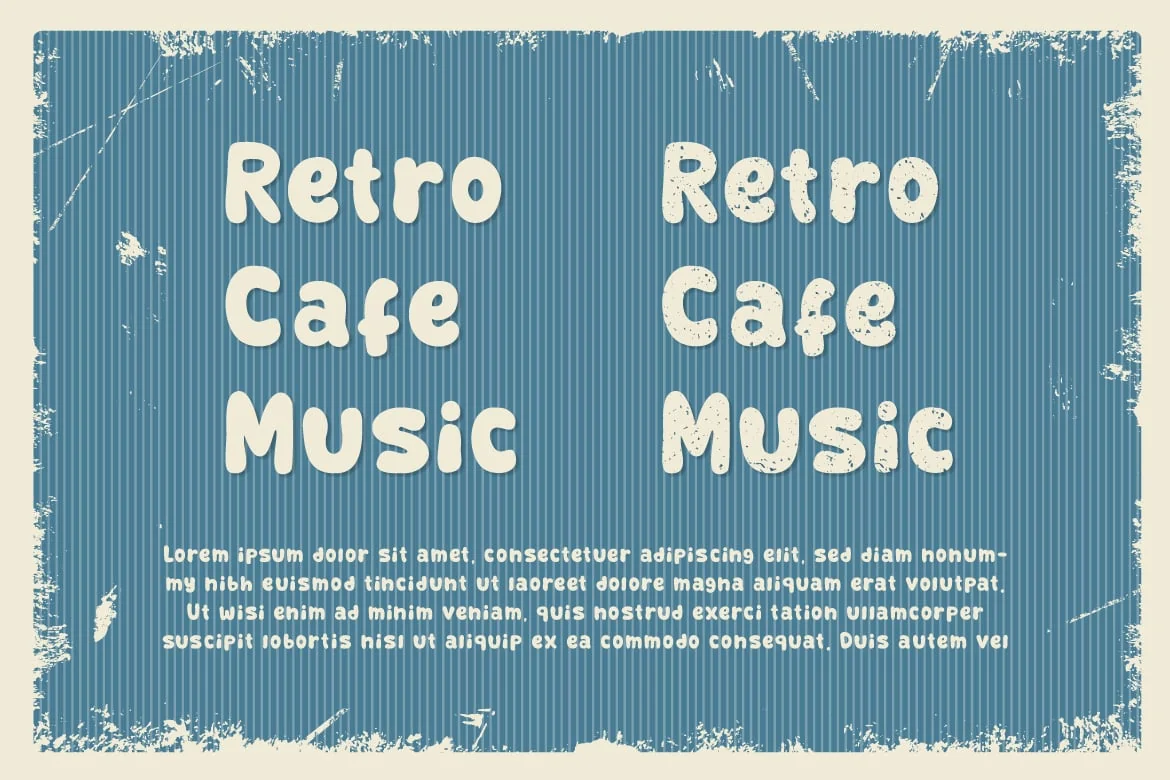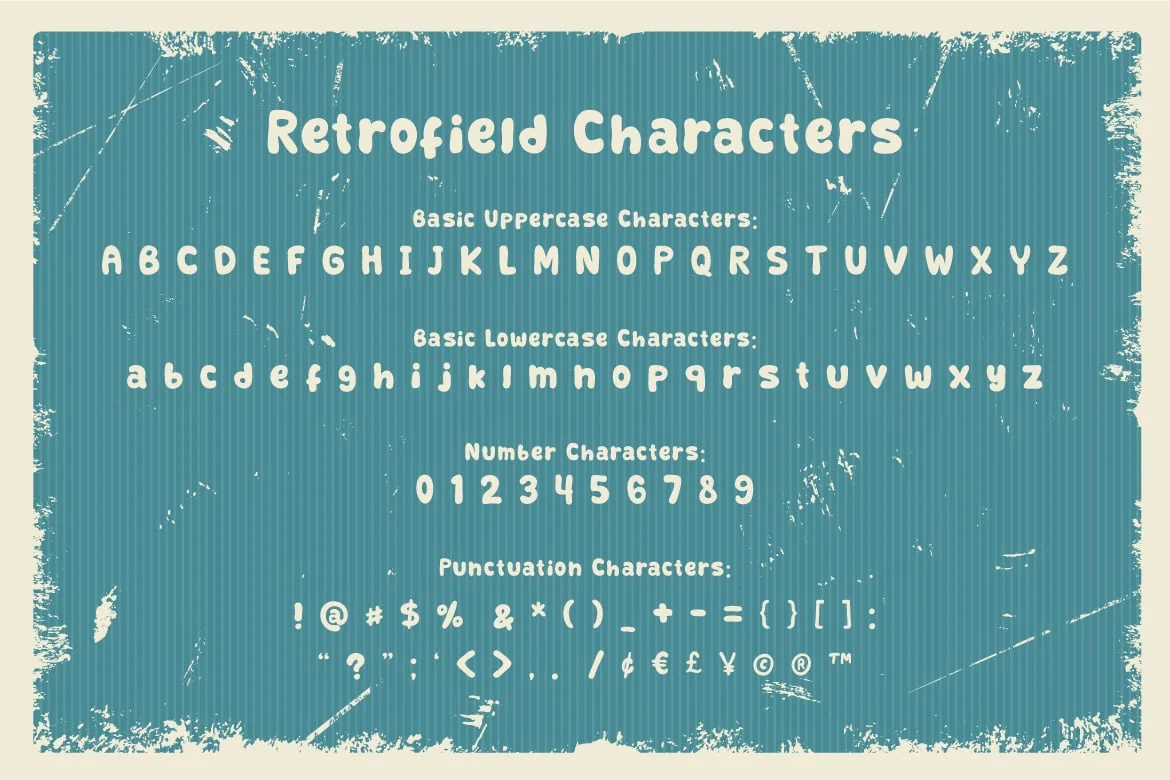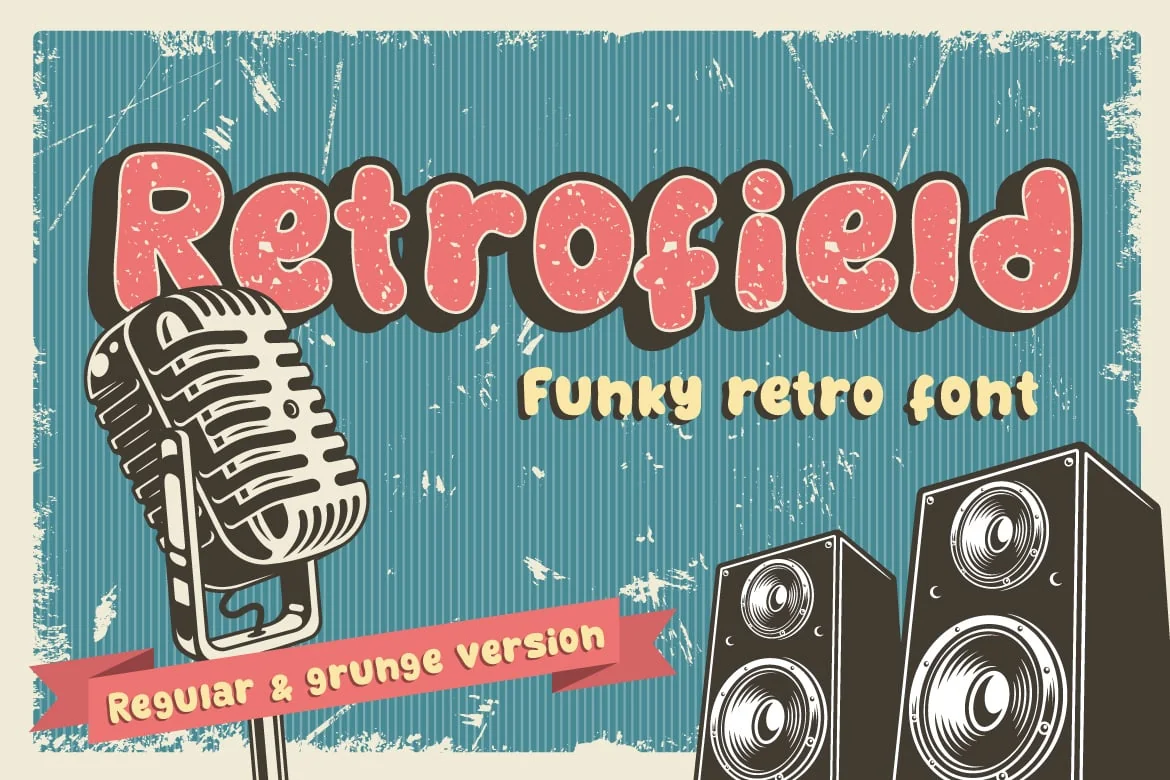
Retrofield – Funky Old Vintage Retro Font
Bring the ’80s vibe using RETROFIELD, a funky old vintage Font.
To complete the ambience, we have two versions, regular and grunge.
This font is suitable for comic, cafe, album cover, flyer, poster, book cover, card, merchandise, etc. This font has lowercase and uppercase style. Try this font and feel the vintage vibe inside the word! 🙂